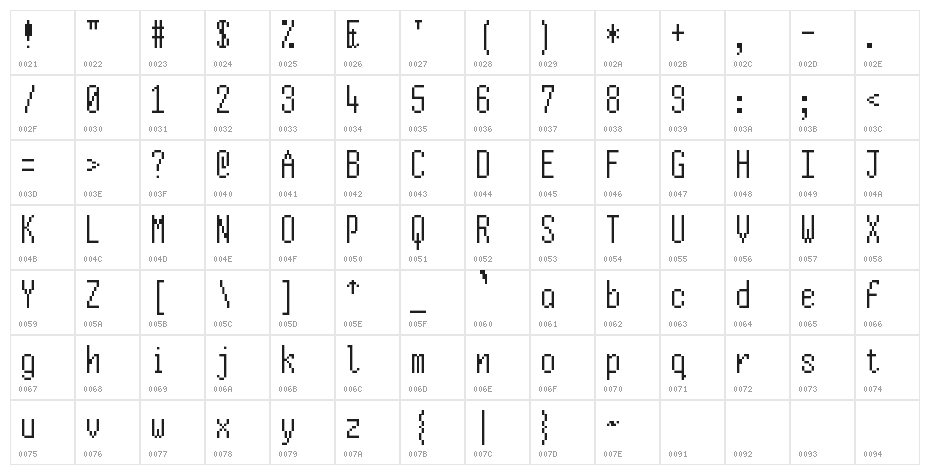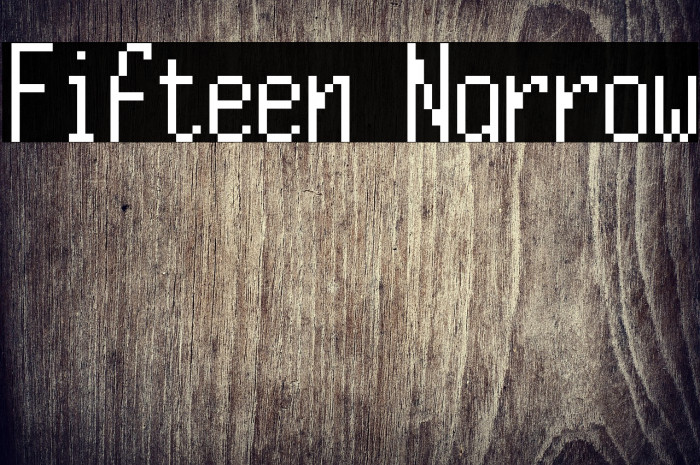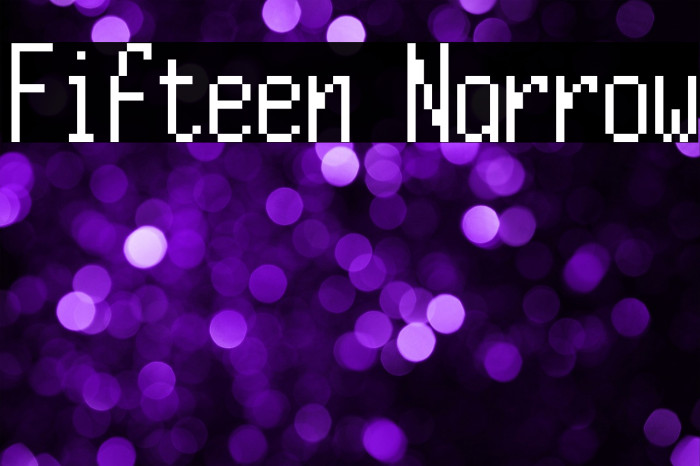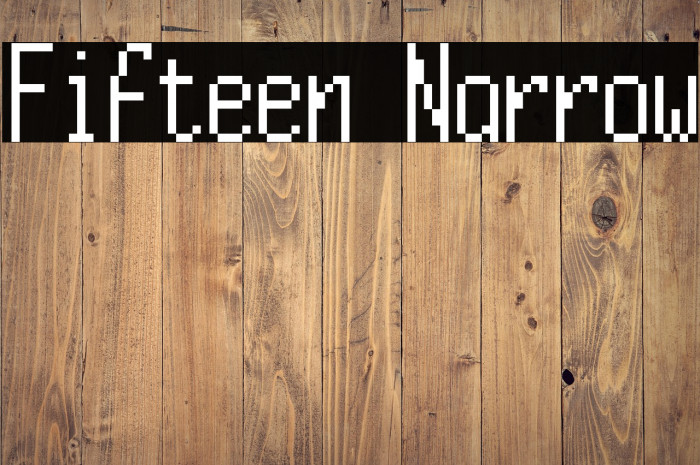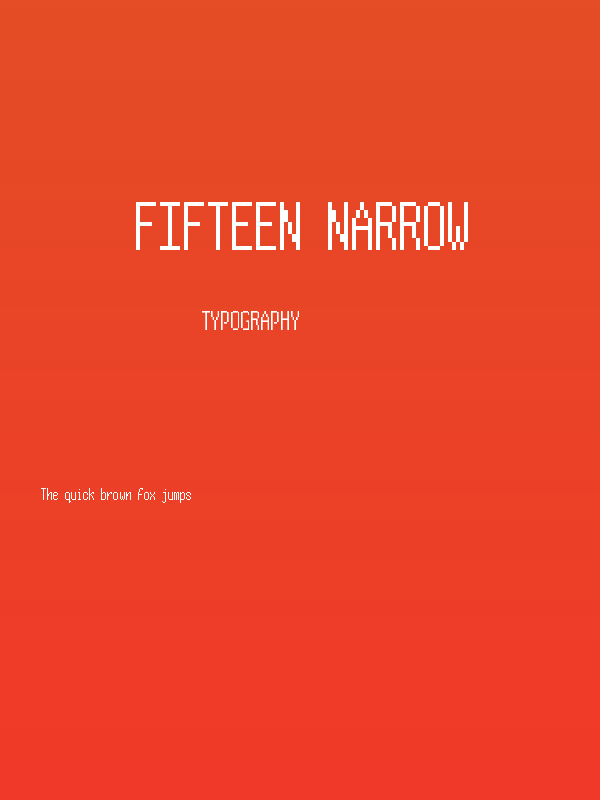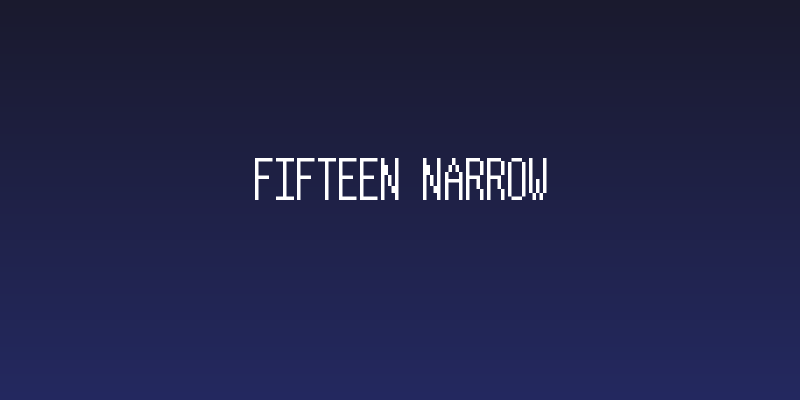
Fifteen Narrow Font
Fifteen Narrow Description
This font features a pixelated, monospaced design reminiscent of early digital displays and retro video games. Each character is composed of a grid-like structure, giving it a distinctly blocky and geometric appearance. The uniformity in width across all characters ensures a consistent and orderly look. The uppercase and lowercase letters maintain a similar height, enhancing readability in compact spaces. Numbers and special characters follow the same pixelated style, making them easily distinguishable. This font's nostalgic aesthetic is ideal for projects seeking a vintage digital or tech-inspired theme.
Overall StyleVintage
Use CaseLogos, Headlines, Digital displays
Proposed ProjectsIdeal for retro video games, digital art projects, tech-themed designs, and any creative work that requires a vintage digital look.